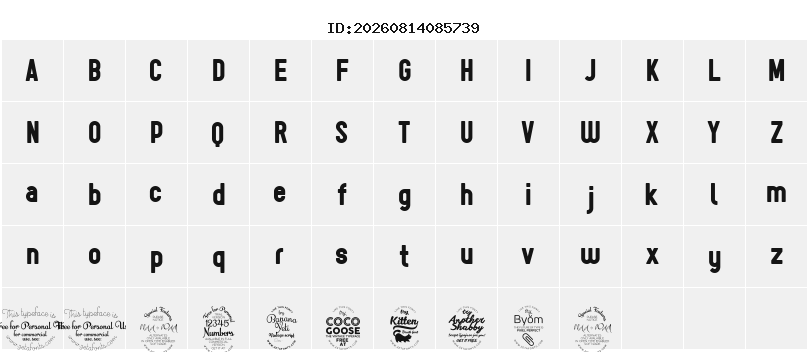
• Font Name: Sugo
• Designer: francesco Canovaro
• Manufacturer: Studio Kmzero
About Sugo.ttf
Sugo.ttf is a modern, elegant sans-serif font designed for ultimate readability and visual harmony. Perfect for branding, headlines, web design, and print materials.